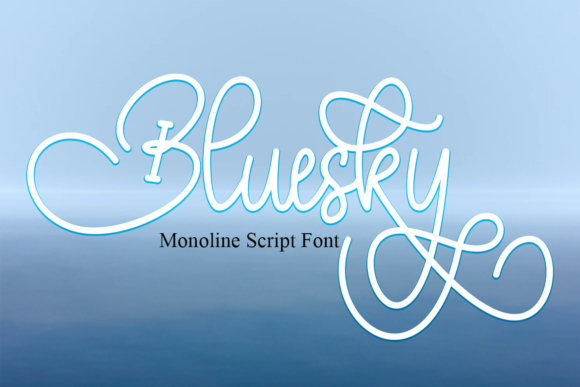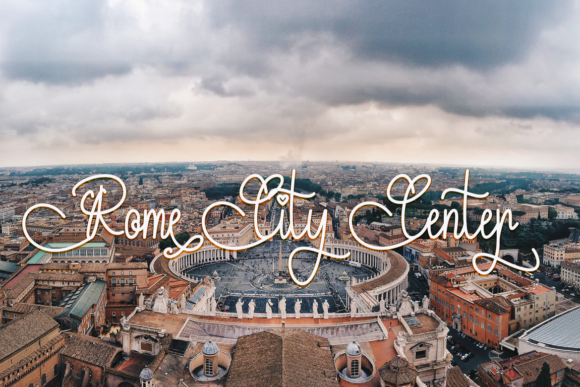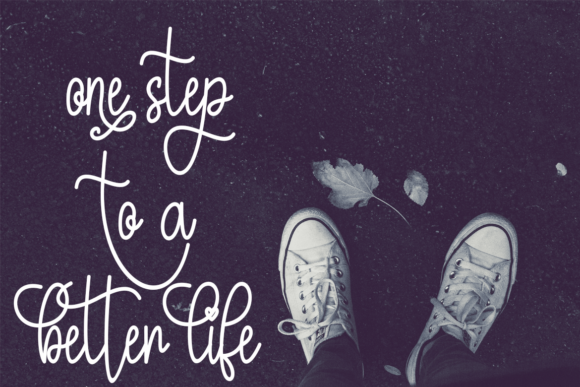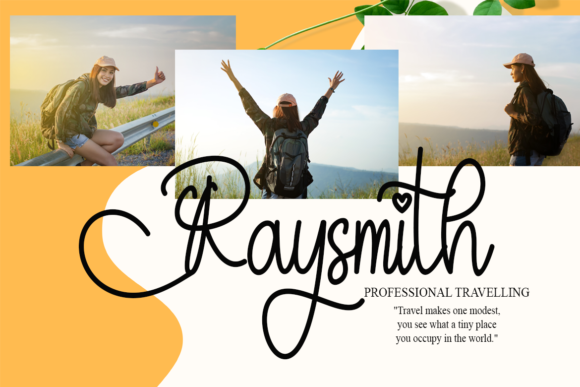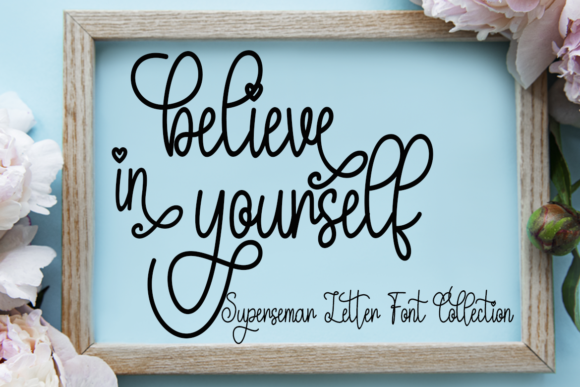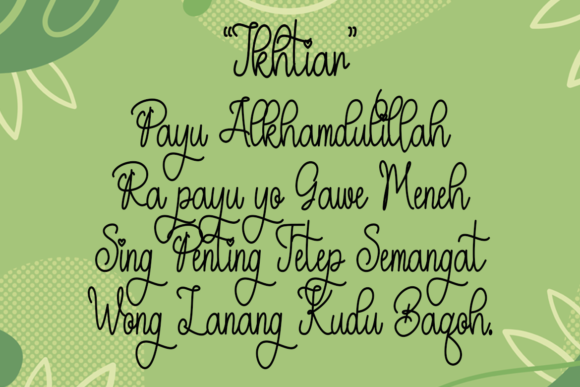
About Bluesky Font
Bluesky is a delicate and light handwritten font. This font is neatly crafted and highly detailed. Whatever the topic, this font will be a wonderful asset to your font library, as it has the potential to enhance any creation.